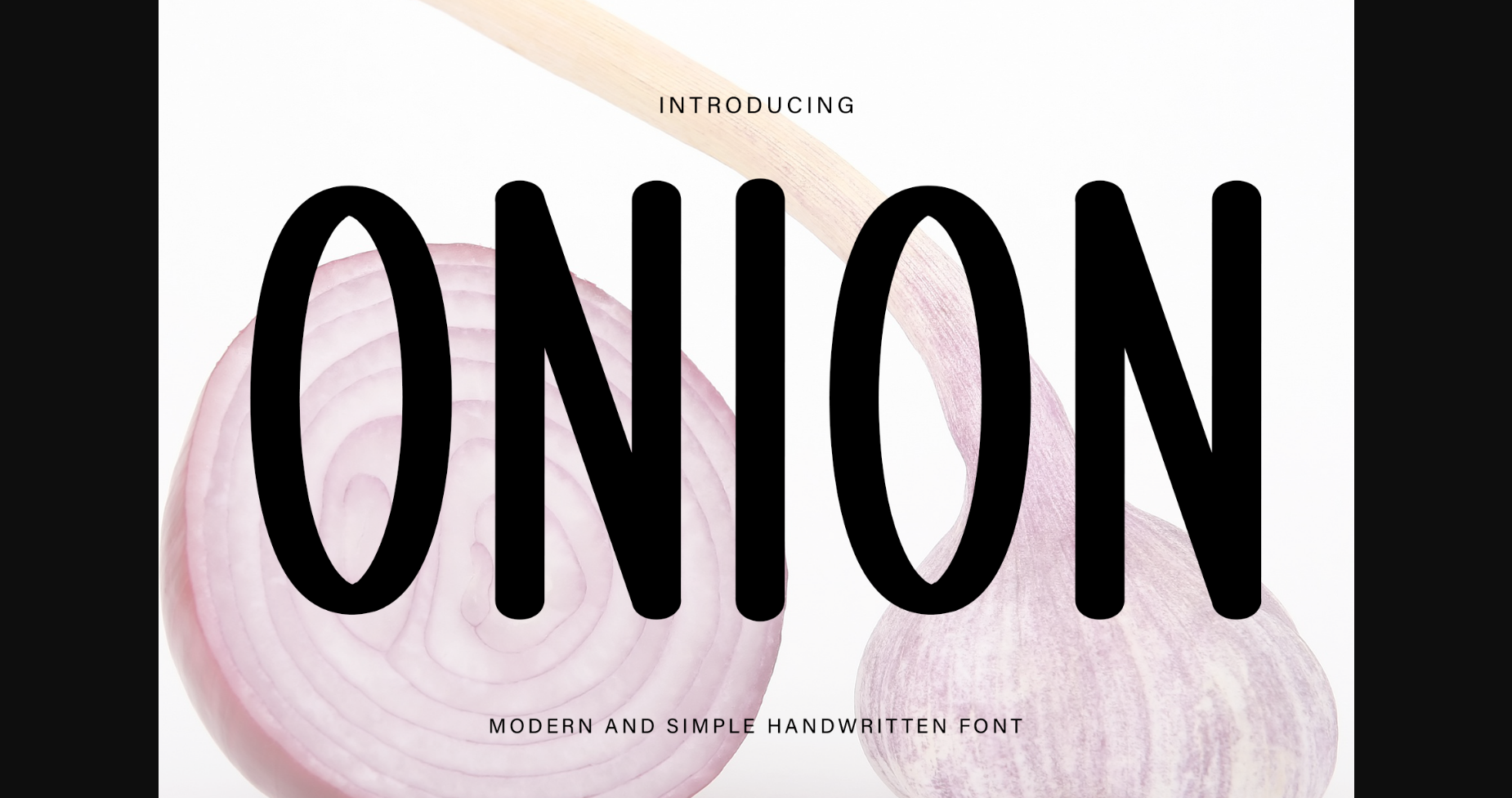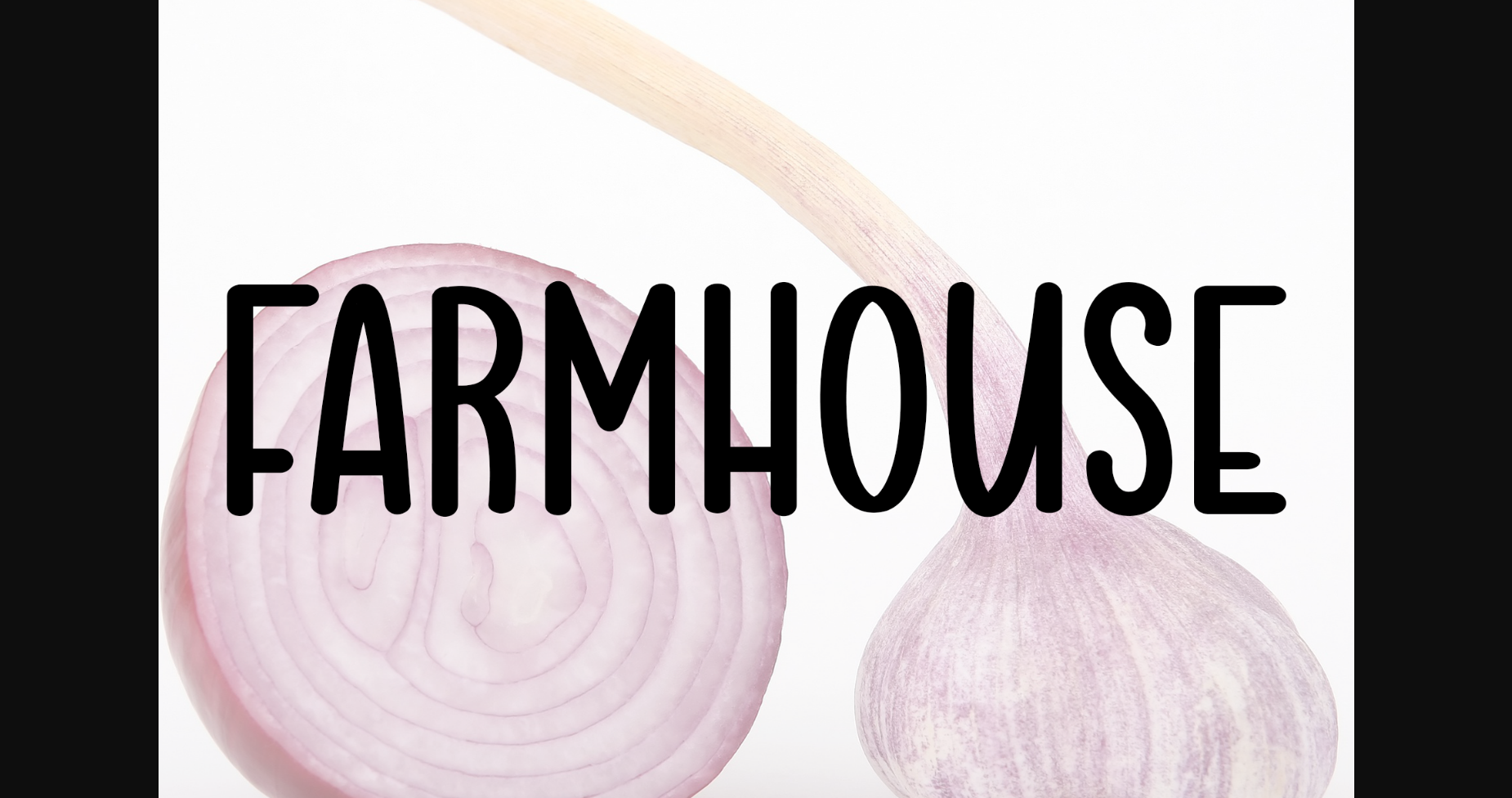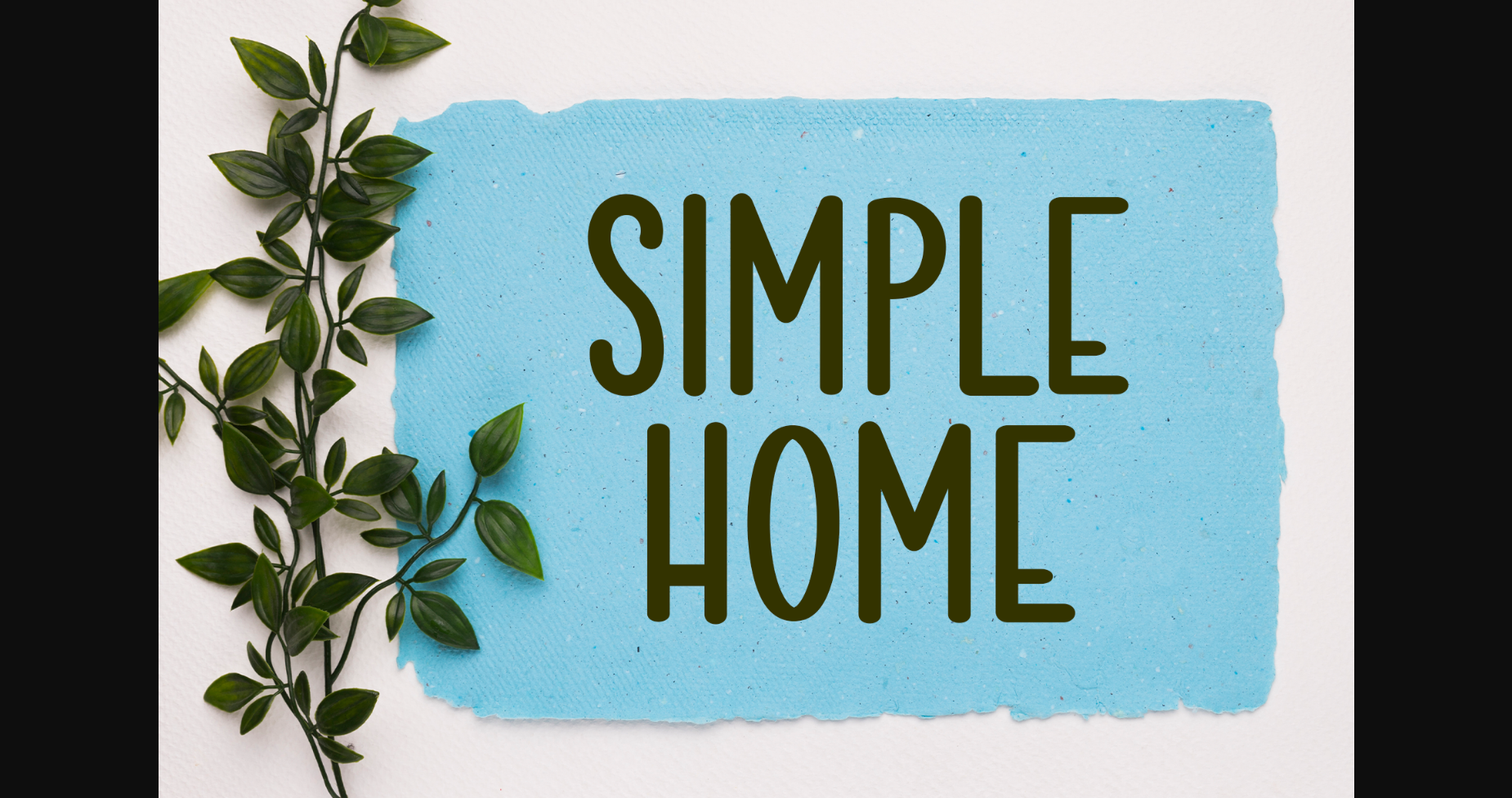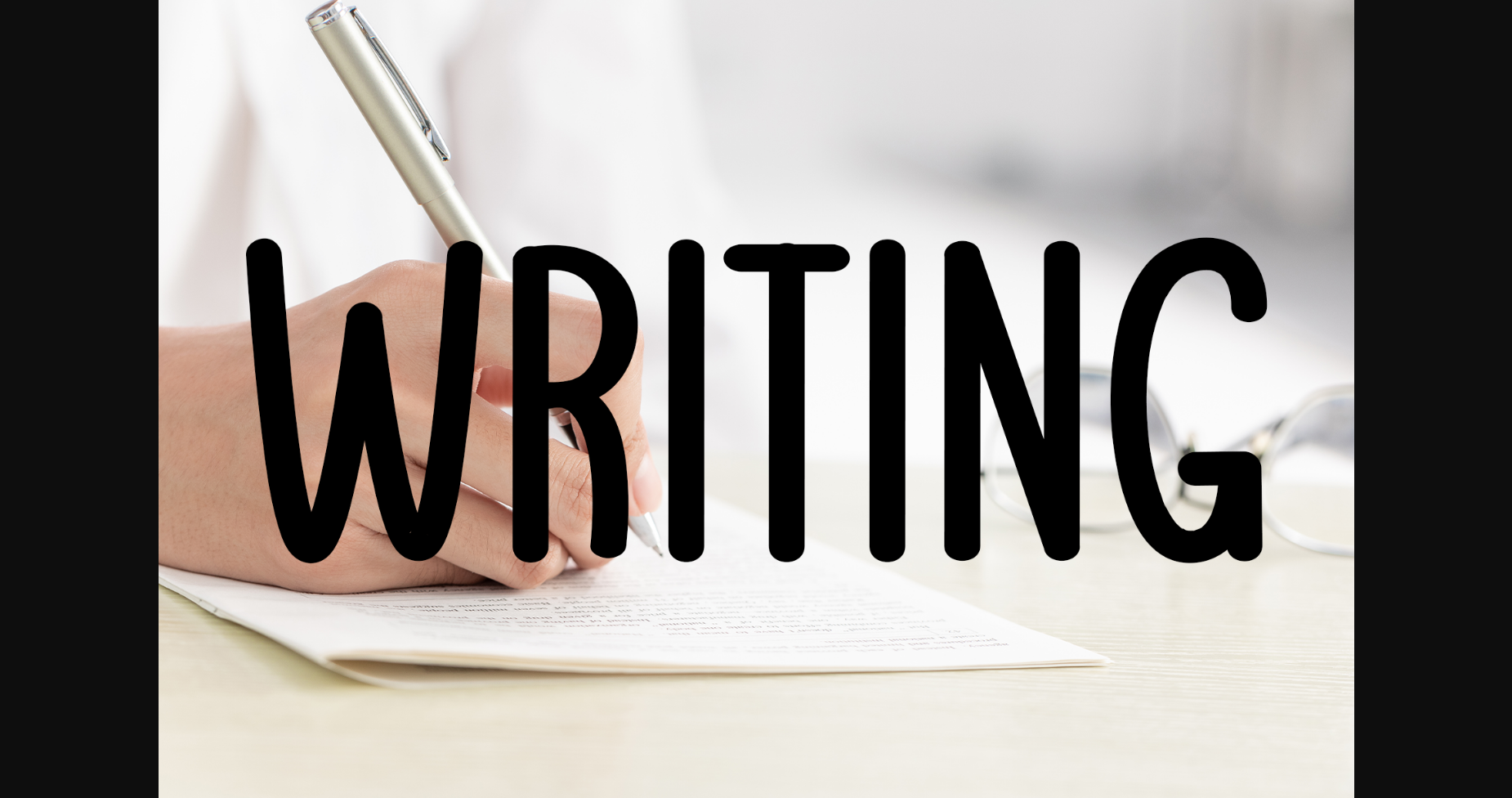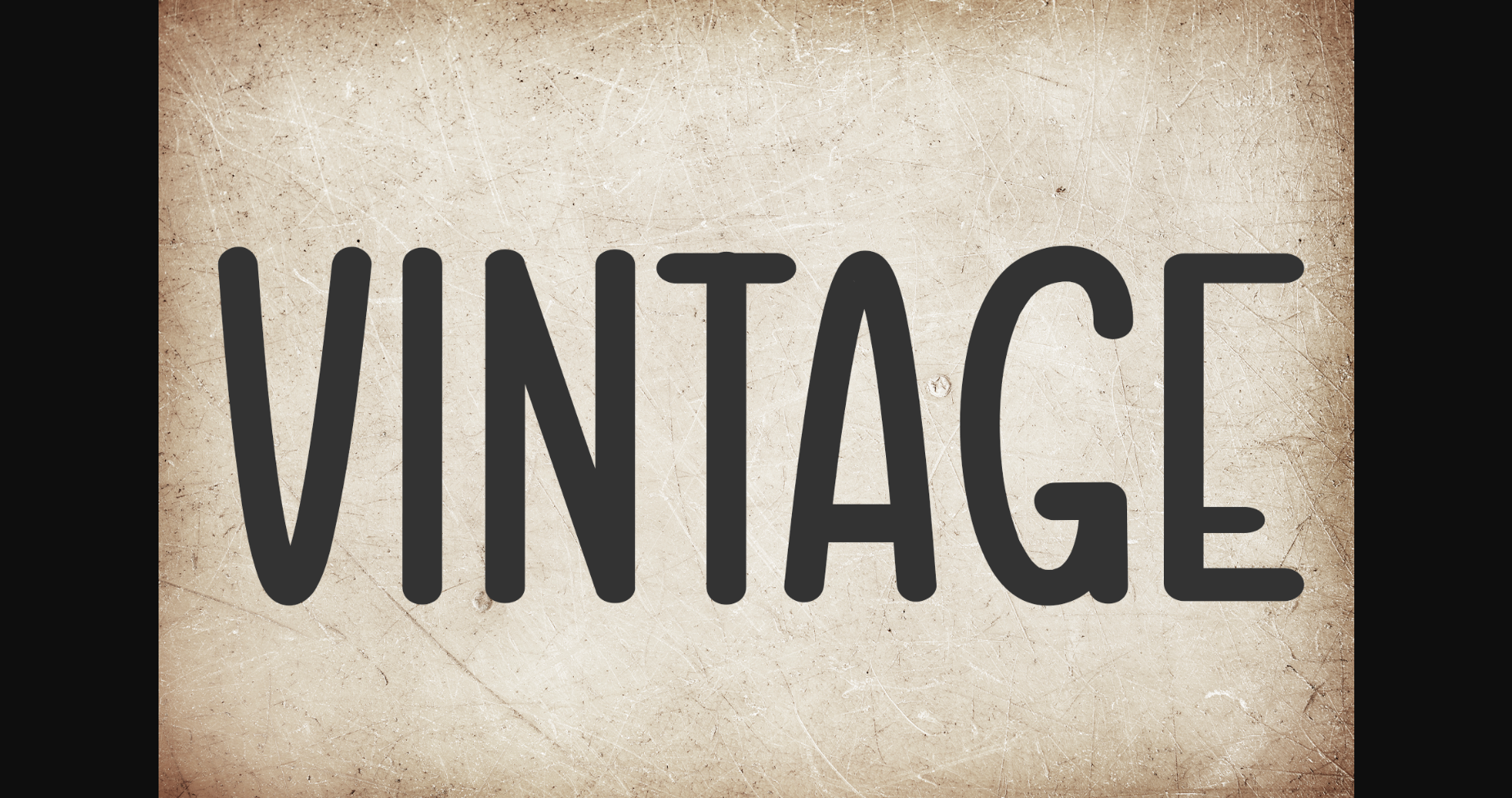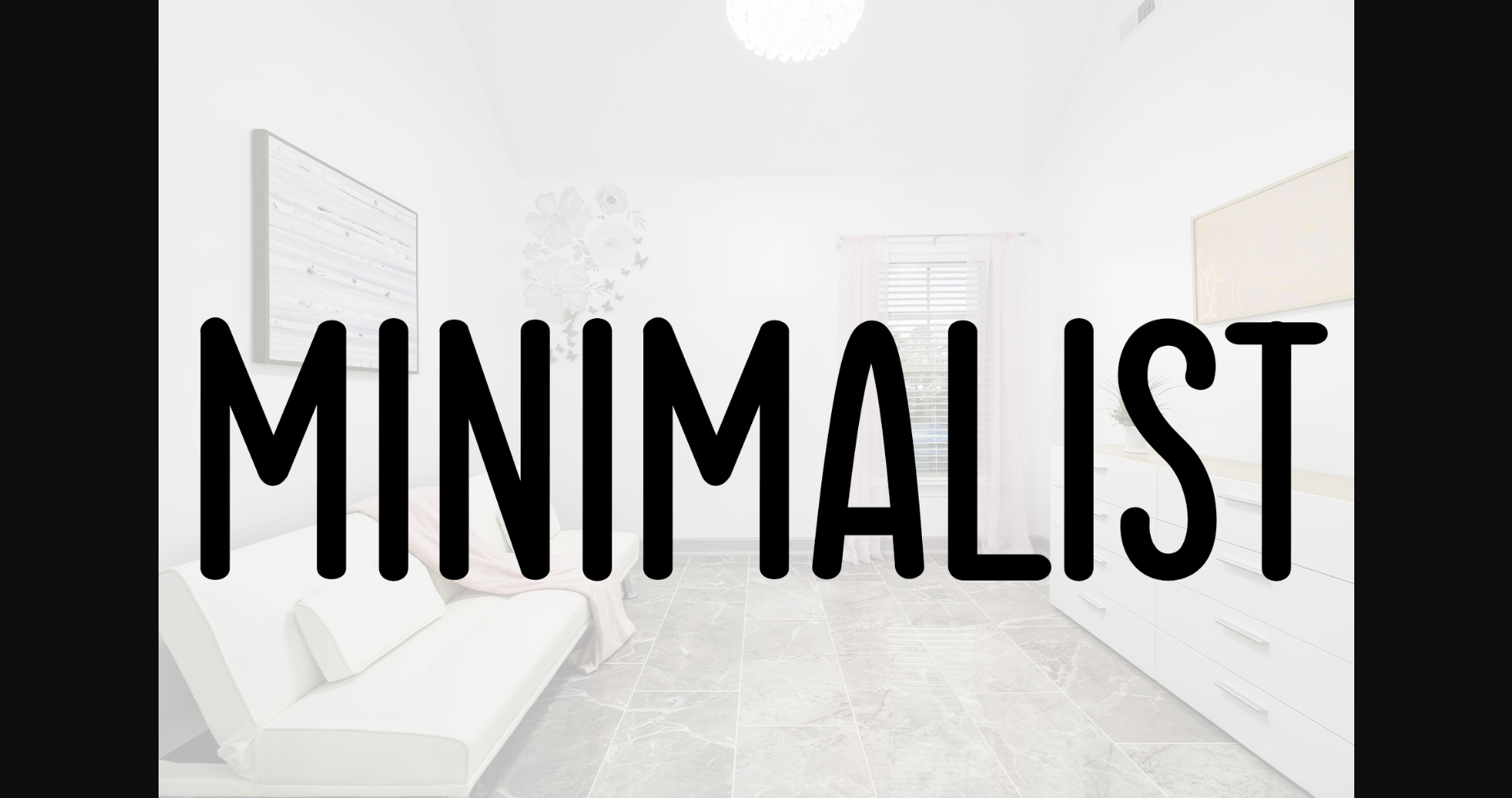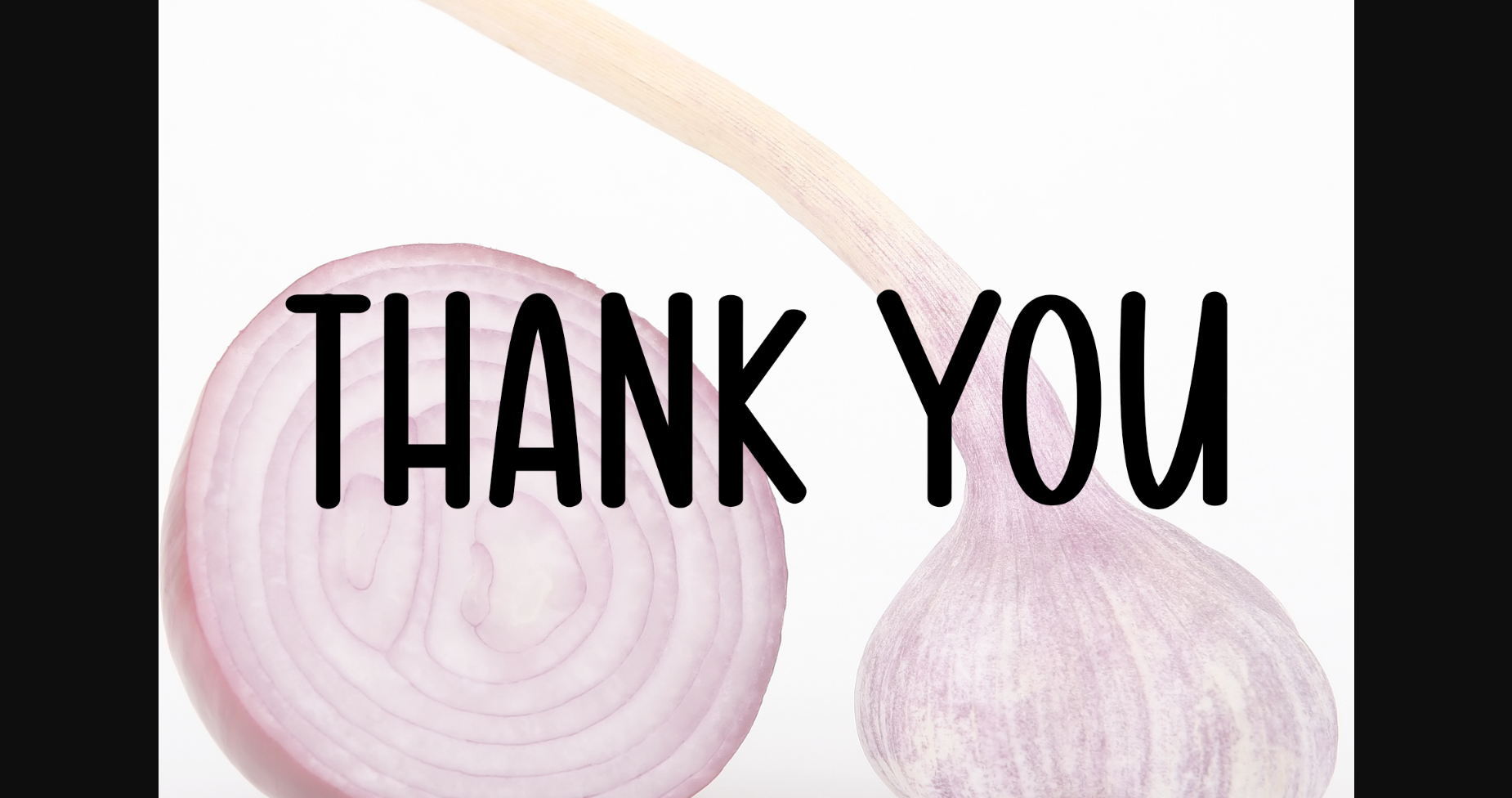
Onion Font
About Onion Font
Onion Font is a sleek and modern sans serif typeface that exudes a contemporary and minimalist aesthetic. With its clean lines and balanced proportions, this font brings a sense of simplicity and versatility to any design. Ideal for branding, editorial layouts, and digital interfaces, Onion Font adds a touch of modernity and professionalism to your projects. Embrace the clean and refined style of Onion Font for a polished typographic experience.